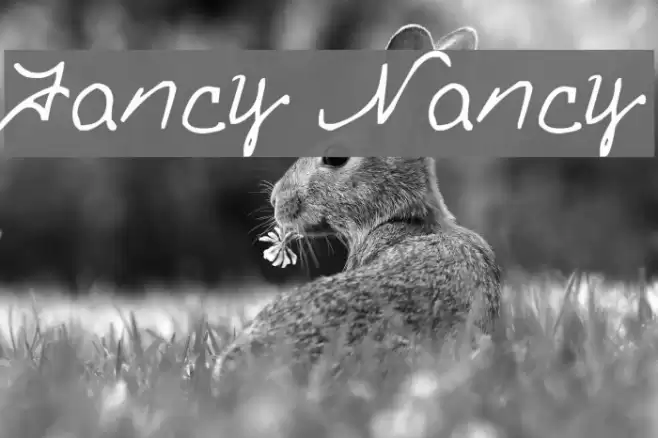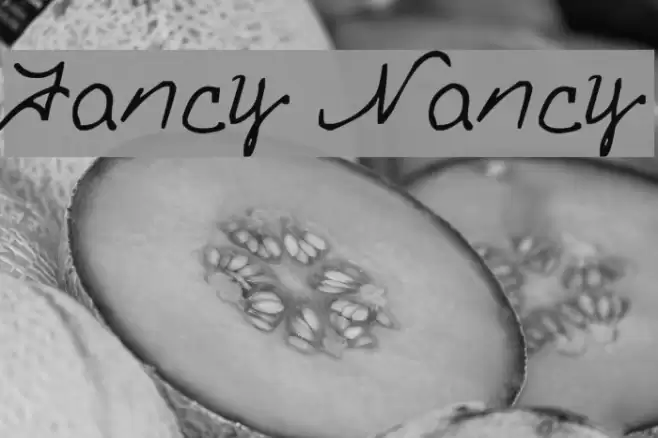
Fancy Nancy Font
Fancy Nancy Description
This font exudes a playful and whimsical charm, characterized by its flowing, cursive style. The letters are connected in a fluid manner, giving it a handwritten appearance that is both elegant and casual. The uppercase letters maintain a consistent height, while the lowercase letters exhibit a slight slant, enhancing the font's dynamic feel. The numerals are bold and distinct, ensuring readability while maintaining the overall aesthetic. Special characters are creatively integrated, adding to the font's versatility. This font is perfect for projects that require a personal touch, such as invitations, greeting cards, or branding materials.
A playful, cursive font with a handwritten style, ideal for personal and creative projects from Uncategorized fonts.
- Proposed Projects: Invitations, greeting cards, branding materials, personal notes, and creative designs.
- Use Case: Headlines, Logos, Invitations